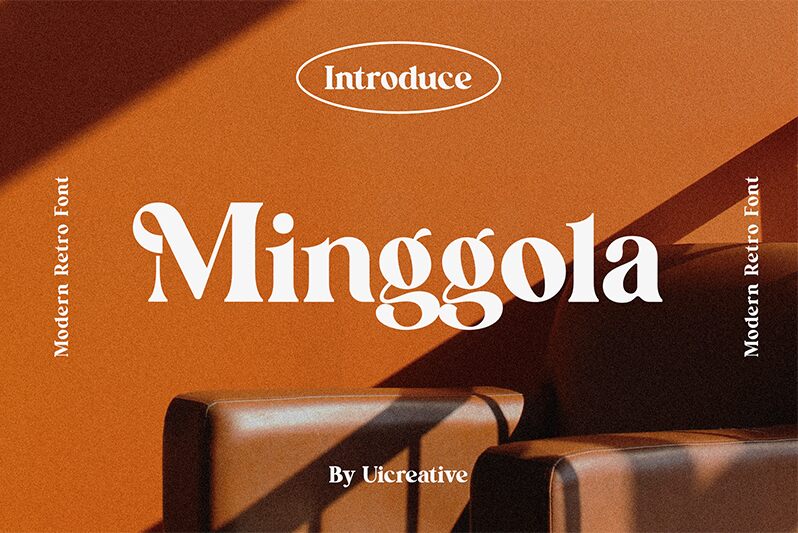
Minggola
Minggola, a bold and retro-inspired serif font crafted by UI Creative, commands attention with its striking presence. This display typeface exudes a captivating blend of vintage charm and modern flair, making it a standout choice for projects seeking a distinct, eye-catching aesthetic. Its robust, bold strokes and refined, classic serifs create a harmonious balance, evoking a sense of timelessness and elegance.
Minggola's versatility shines through, seamlessly adapting to diverse design applications. From impactful headlines and eye-catching logos to vintage-inspired branding and editorial layouts, this font's unique character and personality add depth and character to any project. Whether you're seeking to elevate a retro-themed design or infuse a sense of refined sophistication, the Minggola font by UI Creative delivers a remarkable typographic experience.